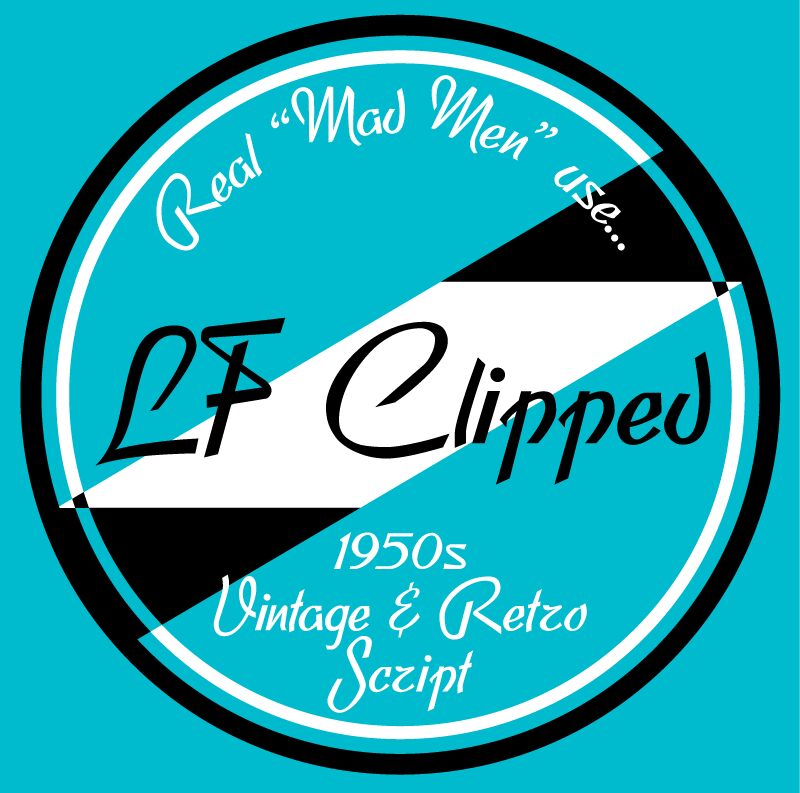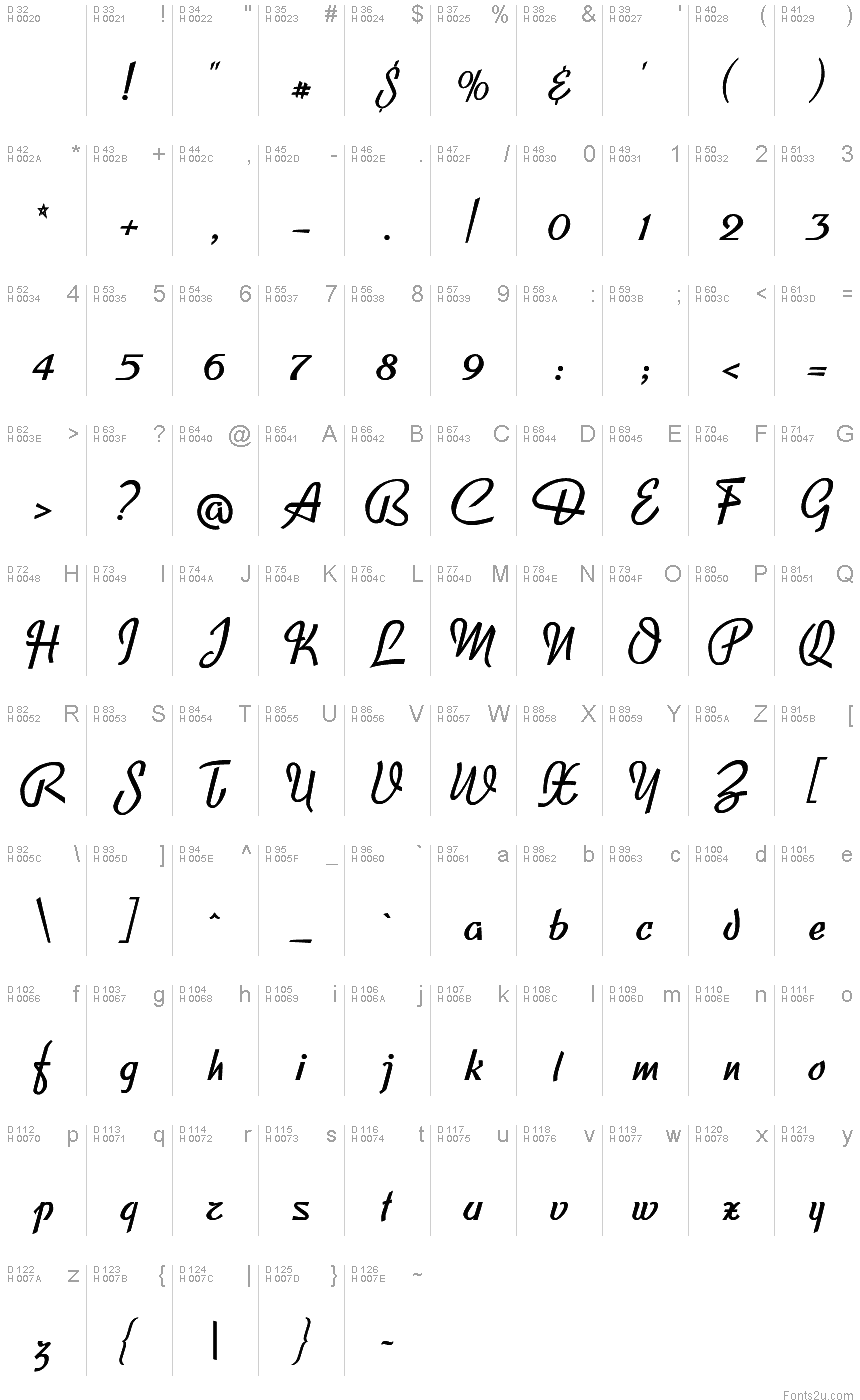
LFclipped
LF Clipped is a (fairly) faithful revival of Clipper by Louis Ferrand, Fonderie Typo. Franaise 1952. Redolent of an age when smoking was considered a healthy pursuit and a Vodka Martini was a suitable breakfast, LF Clipped is ideal for vintage and retro projects. Served with accents & currency and a twist of lime, shaken, not stirred.